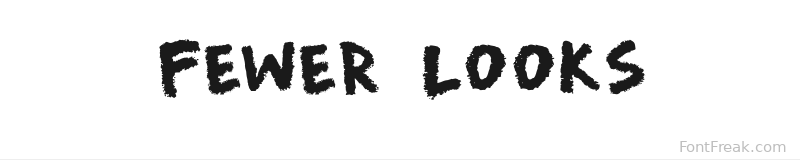
Fewer Looks
About Fewer Looks
Fewer Looks, designed by BLKBK Fonts, is a striking display font that captures attention with its unique, hand-drawn style. This font is classified as a decorative typeface, characterized by its bold, irregular strokes and dynamic texture, giving it a lively and artistic flair. The stroke weight varies throughout the characters, creating a sense of motion and spontaneity that is perfect for capturing the viewer's interest. With its playful spacing and expressive forms, Fewer Looks stands out in various design contexts.
Ideal use cases for Fewer Looks include wedding invitations, where its informal yet elegant style can add a personal touch; movie posters, where its boldness can effectively convey excitement and energy; restaurant menus, allowing for a creative presentation that draws customers in; and social media graphics, where its eye-catching appearance can elevate online content. This font caters to a diverse audience, including graphic designers seeking to add a unique touch to their projects, small business owners looking to enhance their branding, and content creators aiming for visually appealing digital content.
One of the key reasons Fewer Looks font free download is compelling is its ability to convey personality and charm in design. Unlike many standard typefaces, Fewer Looks brings a sense of originality and character, making it an excellent choice for projects that aim to make a memorable impact. Its versatility allows it to shine in both print and digital formats, ensuring that any message delivered through this font resonates strongly with its audience. In a world filled with generic fonts, Fewer Looks stands out as a refreshing option that invites creativity and innovation.